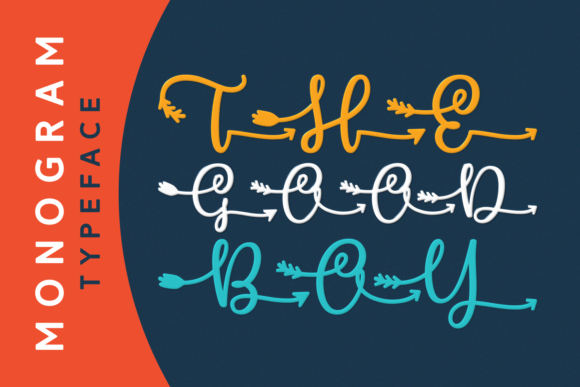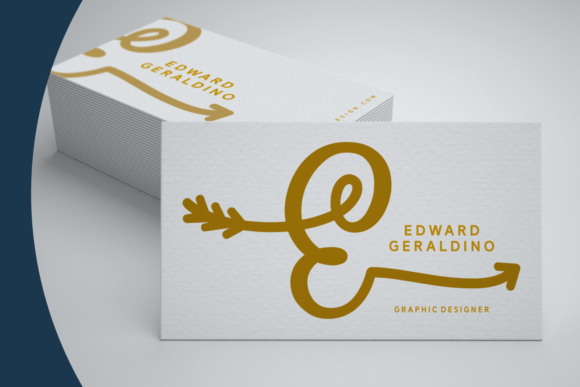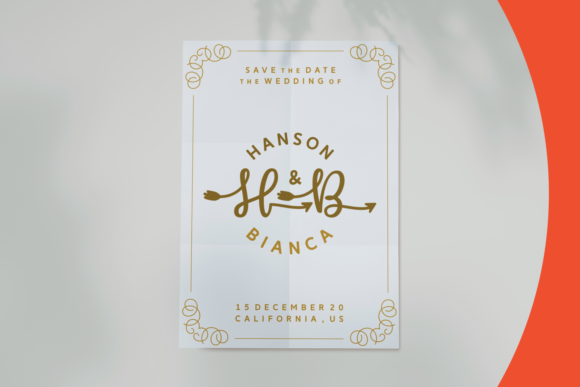
The Good Boy Font
About The Good Boy Font
The Good Boy is a beautiful and fun script font with amazing arrows. It will add a playful twist to any design project!